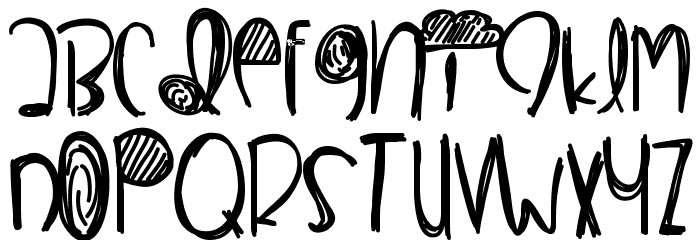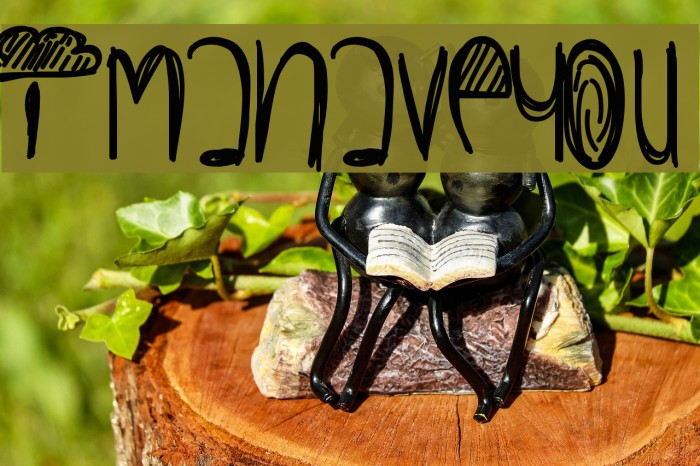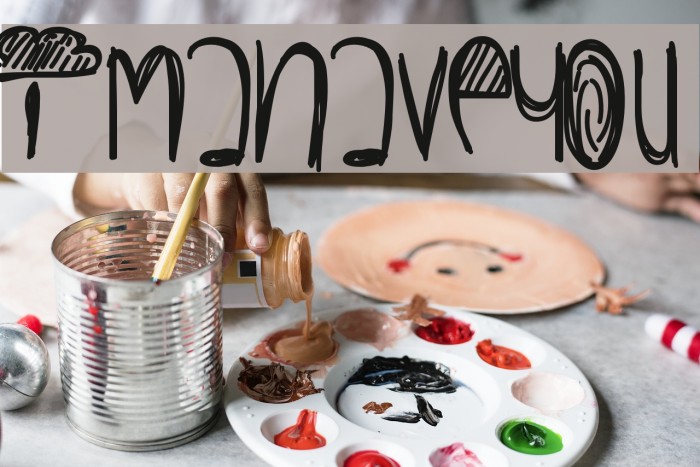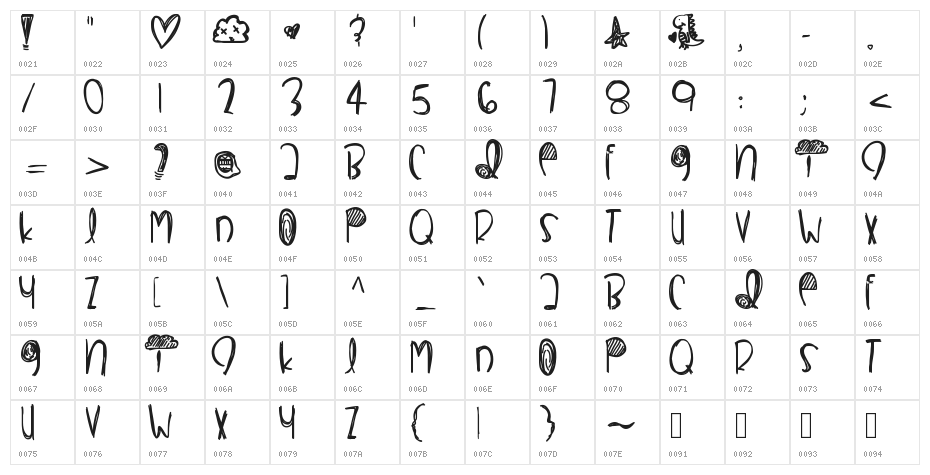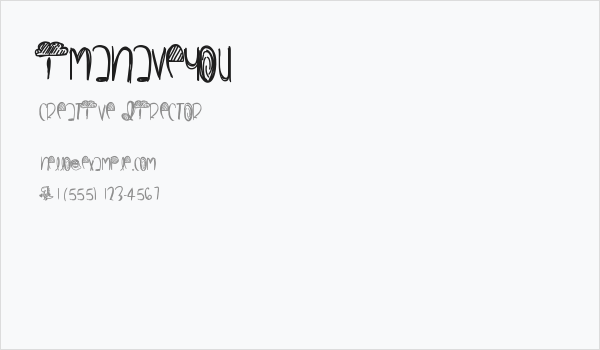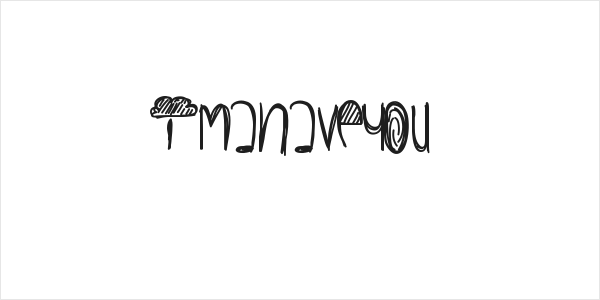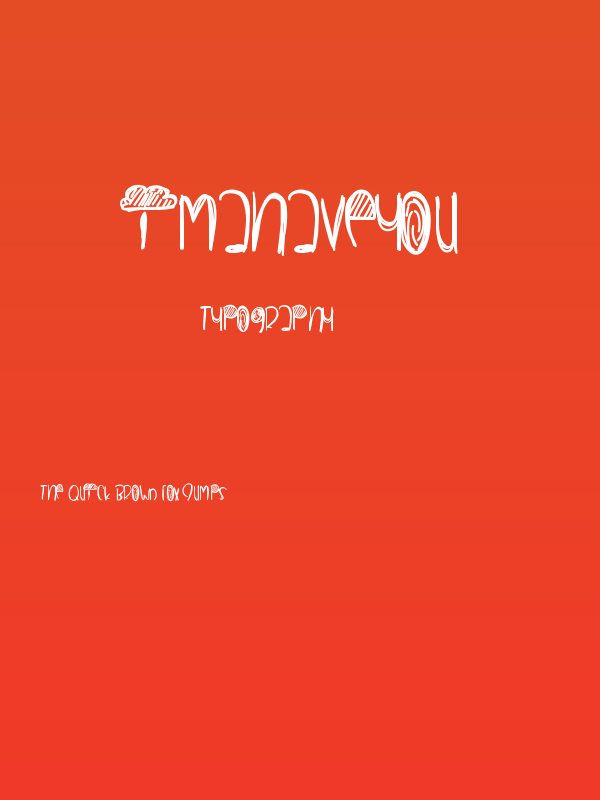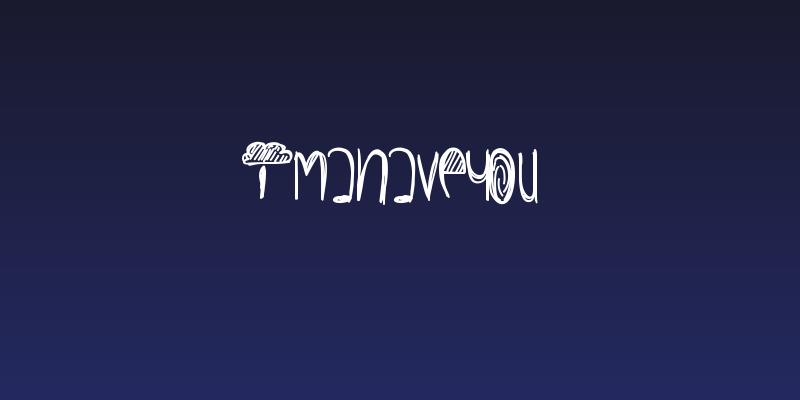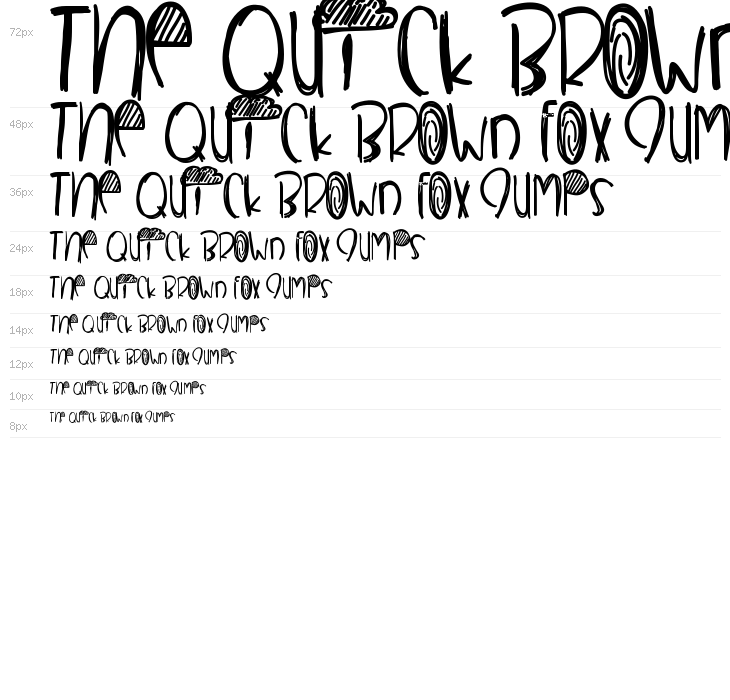
ImaHaveYou Font
This playful and whimsical font features a hand-drawn, doodle-like style that exudes a sense of fun and creativity. The characters are bold and irregular, with a casual, informal appearance. Each letter has unique embellishments, such as stripes, swirls, and cloud motifs, adding to its quirky charm. The numbers and special characters maintain this lively aesthetic, making the font ideal for projects that require a touch of personality and flair. Its distinctive style is perfect for capturing attention and conveying a lighthearted message.
A playful, hand-drawn font with a whimsical, doodle-like style.
- Proposed Projects: Ideal for children's books, playful branding, greeting cards, and creative posters.
- Overall Style: Whimsical, Playful